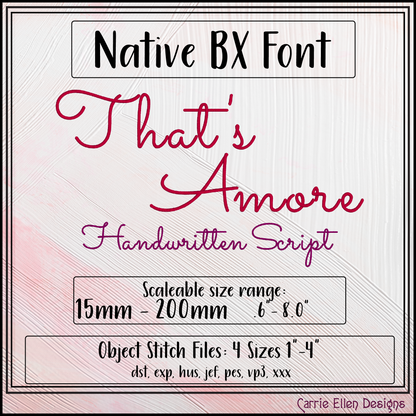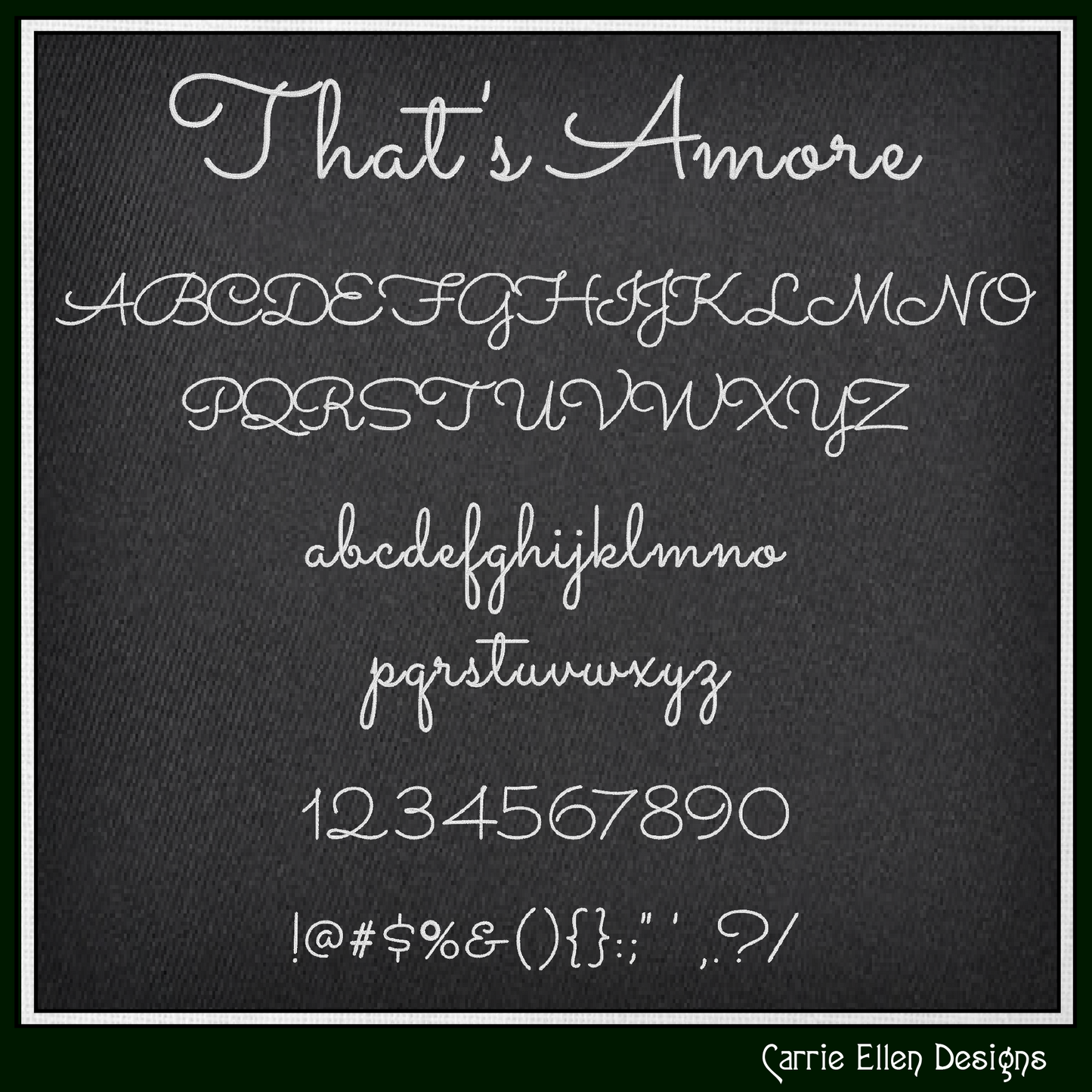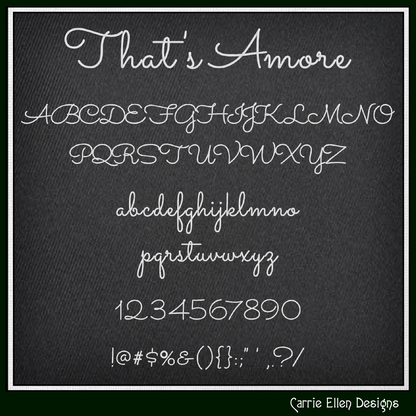
That’s Amore BX Font & Lettering Stitch Files | Handwritten Script Alphabet Machine Embroidery Font (3981)
Fall in love with stitching all over again with the That’s Amore BX Font, a romantic handwritten script-style alphabet designed for machine embroidery. Inspired by playful vintage charm and classic Italian romance, this font brings smooth flowing letters and elegant curves to every project.
The soft handwritten script style adds warmth and personality while maintaining clean stitch paths for smooth sew-outs. Whether you’re creating romantic gifts, Italian-inspired designs, or playful retro projects, this font adds charm and movement to every stitch.
- Uppercase letters
- Lowercase letters
- Numbers
- Basic punctuation
- Consistent styling across all characters